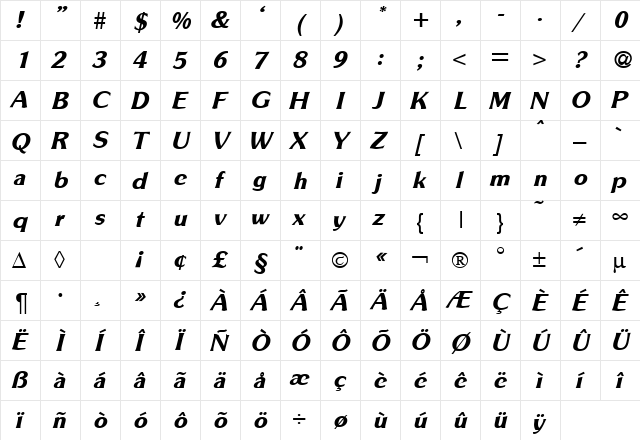
SunsetGothicDemi RegularItalic
Design Context for SunsetGothicDemi Typeface
SunsetGothicDemi has the quiet confidence of well-executed sans-serif typography: versatile, unobtrusive, and dependable at any size. The slanted form adds forward momentum and visual energy.
Font Pairing: Works well alongside a characterful serif or display font that can carry the expressive load while SunsetGothicDemi handles the functional copy.
Pro Tip: Use SunsetGothicDemi for UI labels, navigation, and short-form body copy where clean legibility is the priority.